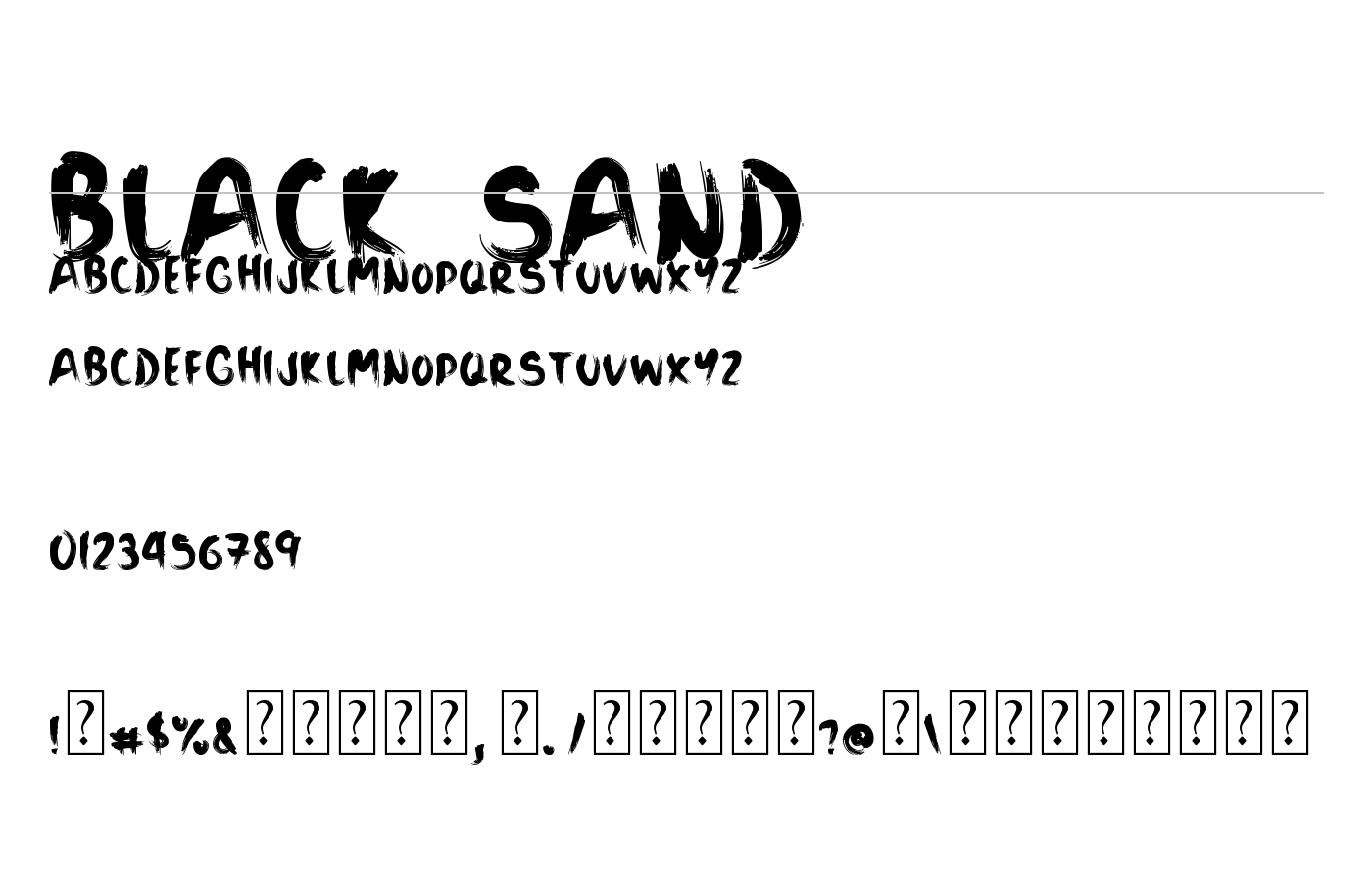
Black Sand Font is a bold, hand-drawn display typeface with a rough, textured brushstroke style that gives it an energetic and edgy feel. Its irregular shapes and high contrast between thick and thin strokes create a dynamic and playful personality, making it ideal for eye-catching headlines, posters, and creative branding that seeks a raw, artistic vibe. This font works best where you want to convey a sense of spontaneity and individuality, such as in fashion, music promotions, or urban-themed designs.
Black Sand Font
About Black Sand Font
| Font family | Black Sand Font |
| Designer | Zaffar Sabbir |